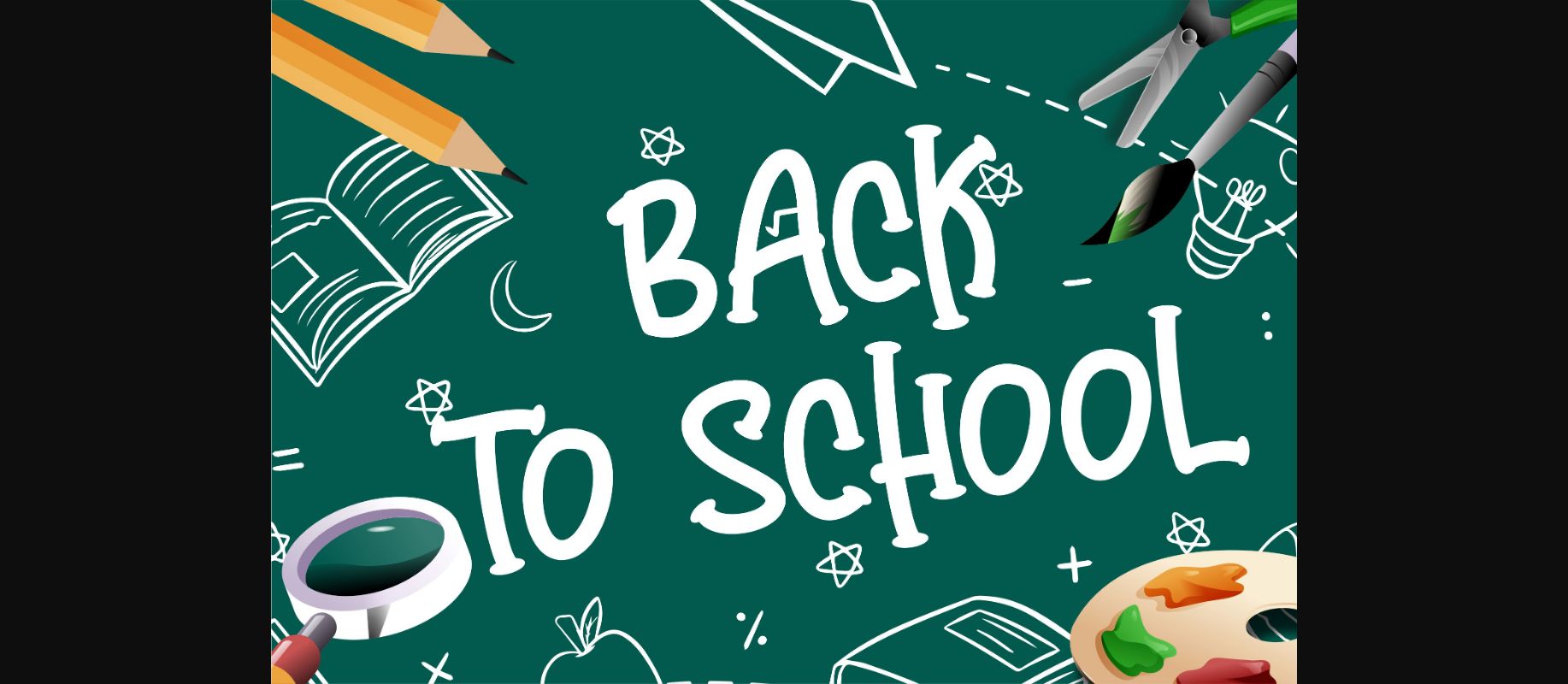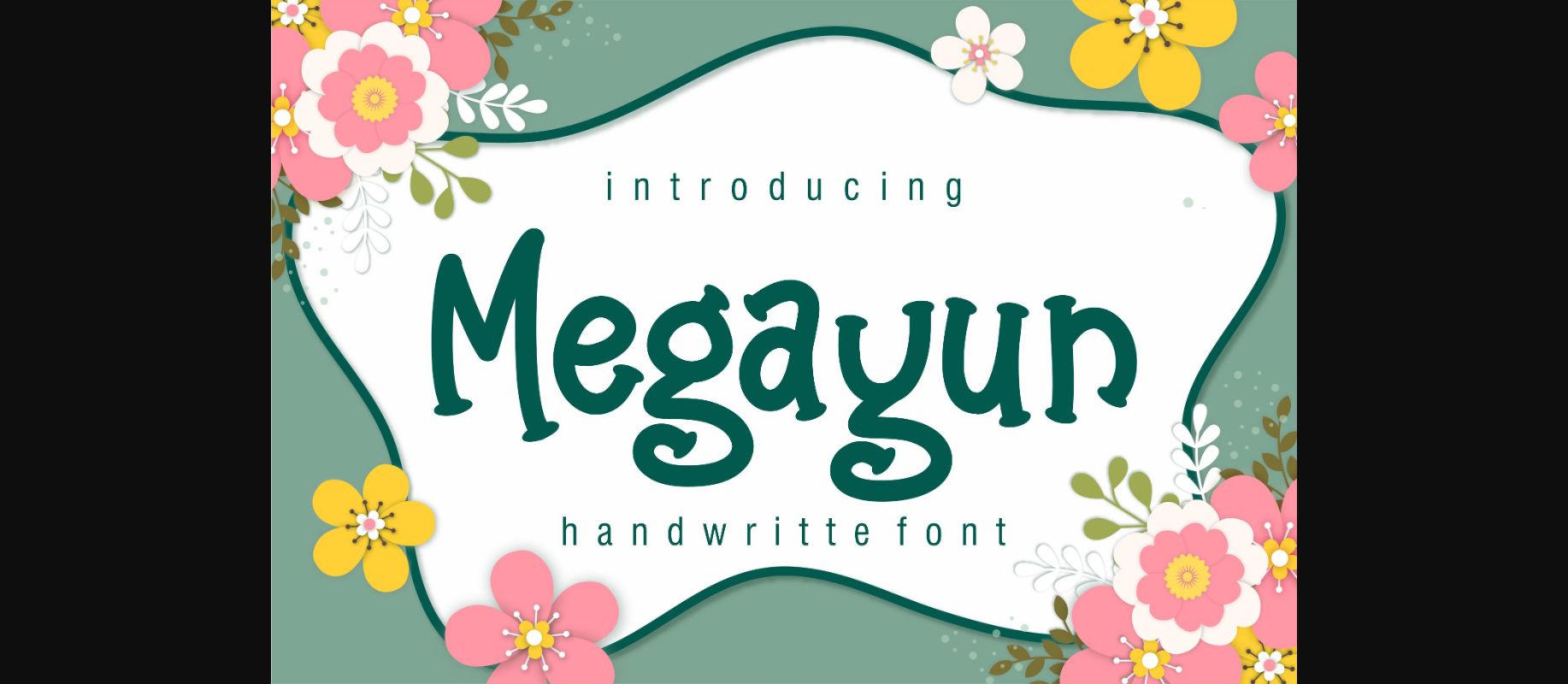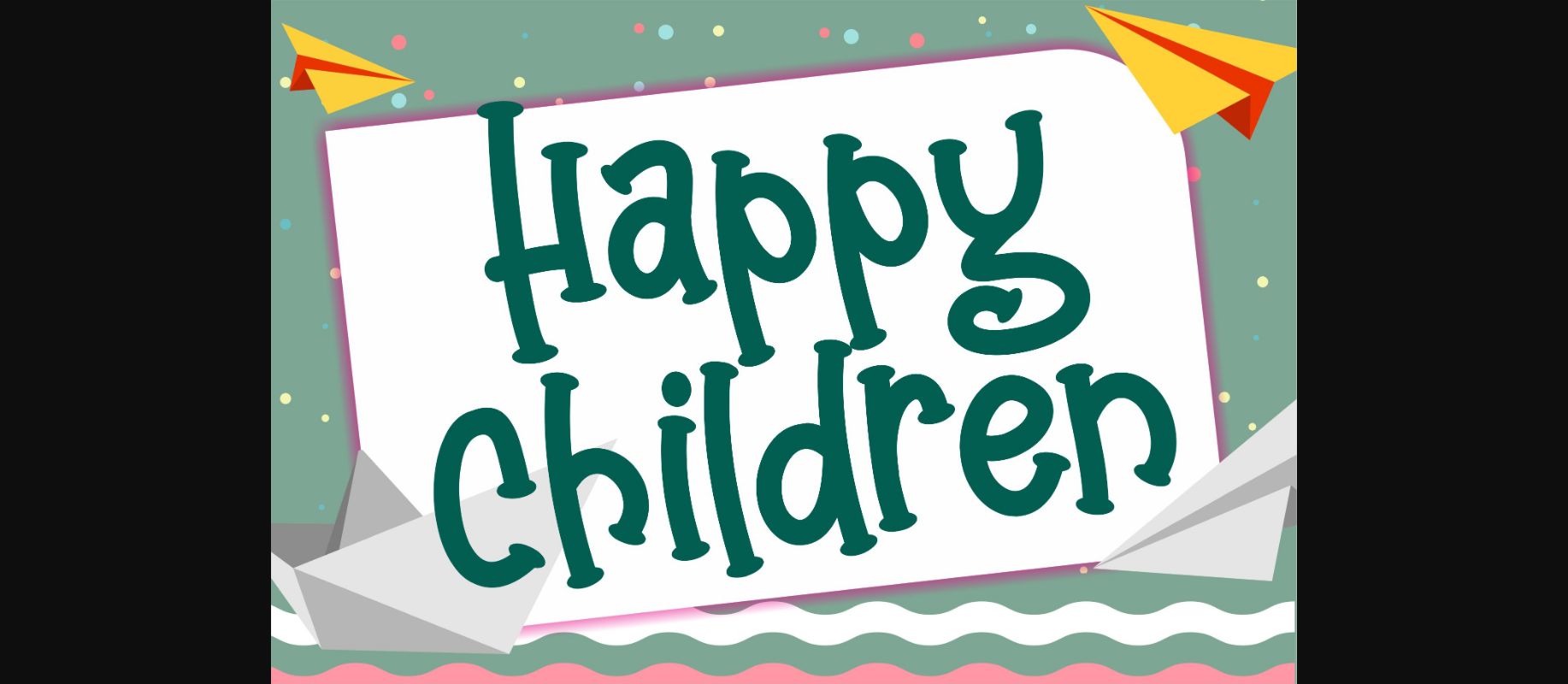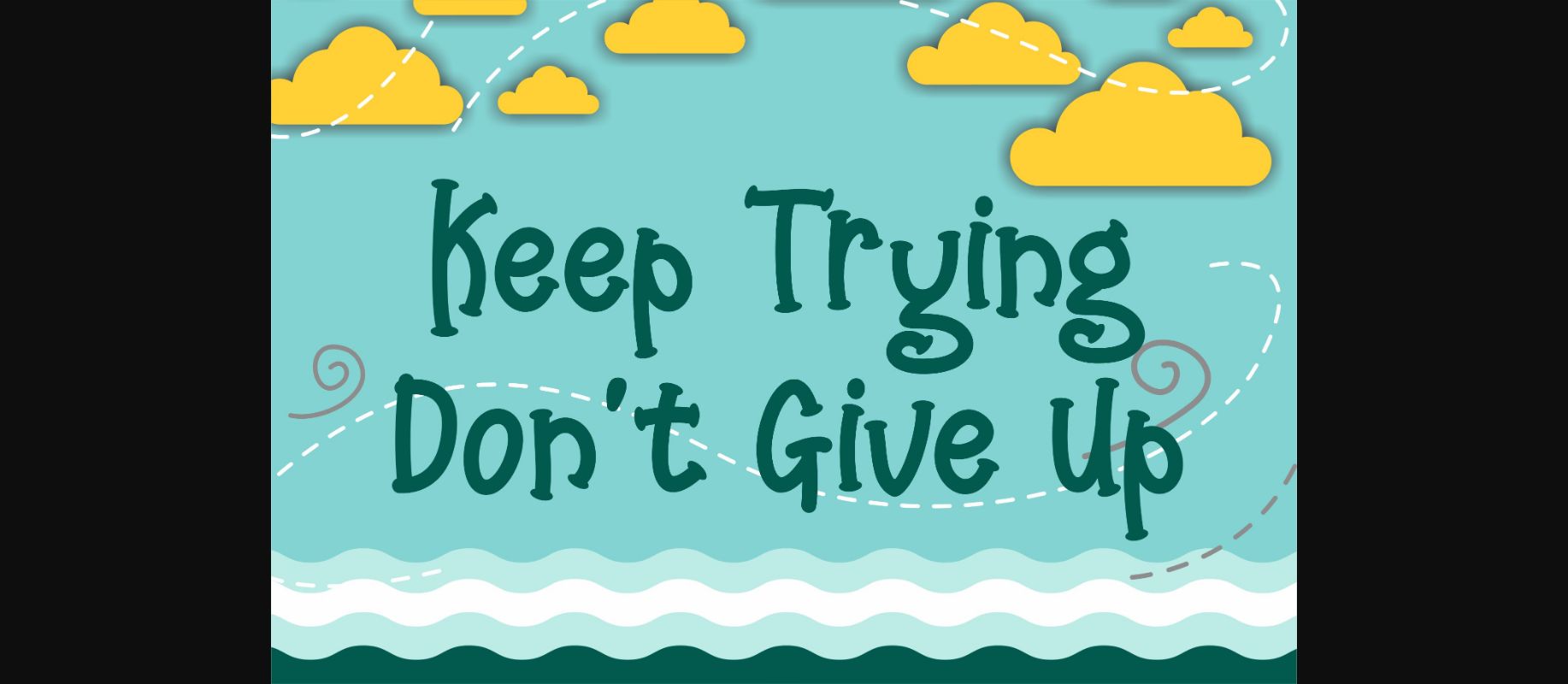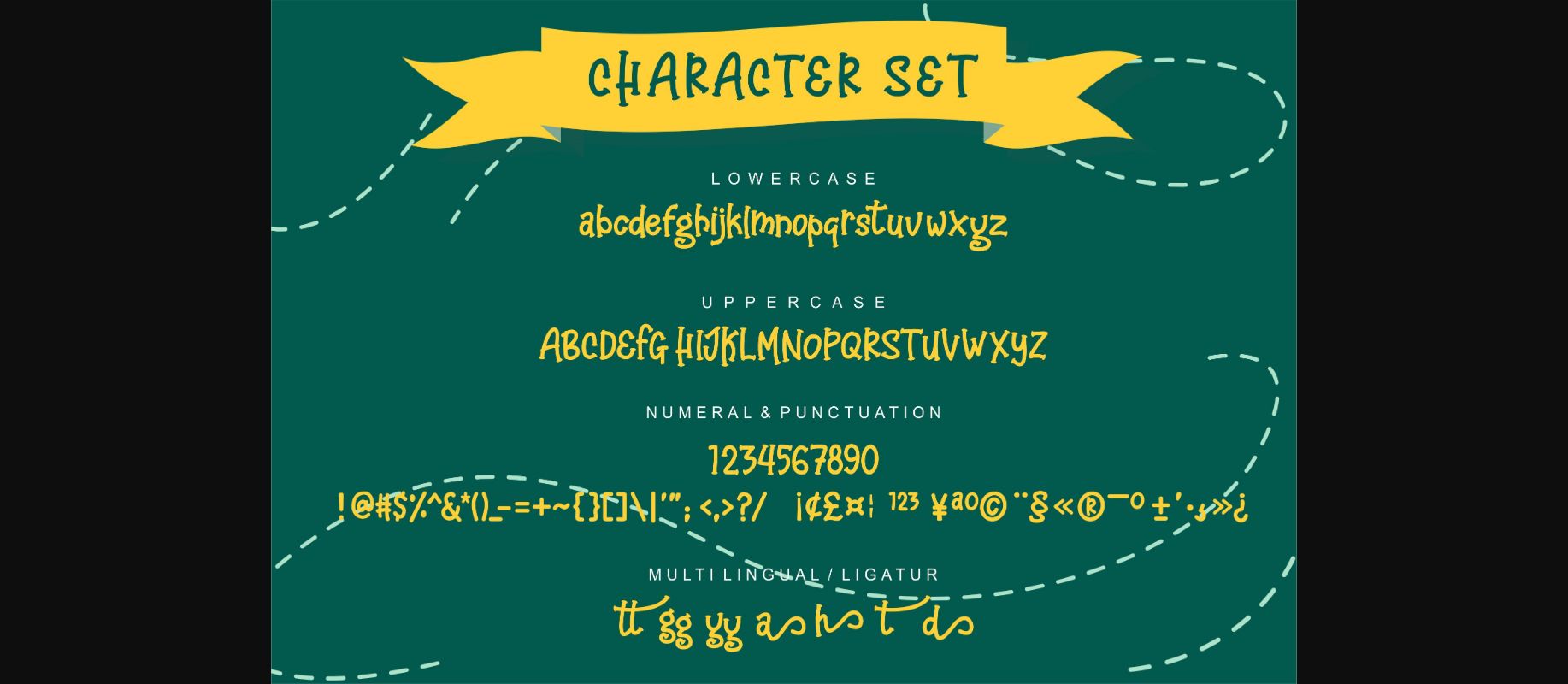
Megayun Font
About Megayun Font
Megayun is a cute and casual handwritten font with an incredibly friendly feel. Whether you’re looking for fonts for Instagram or calligraphy scripts for DIY projects, Megayun will turn any creative idea into a true piece of art!